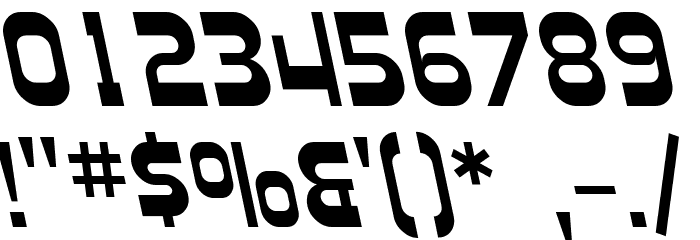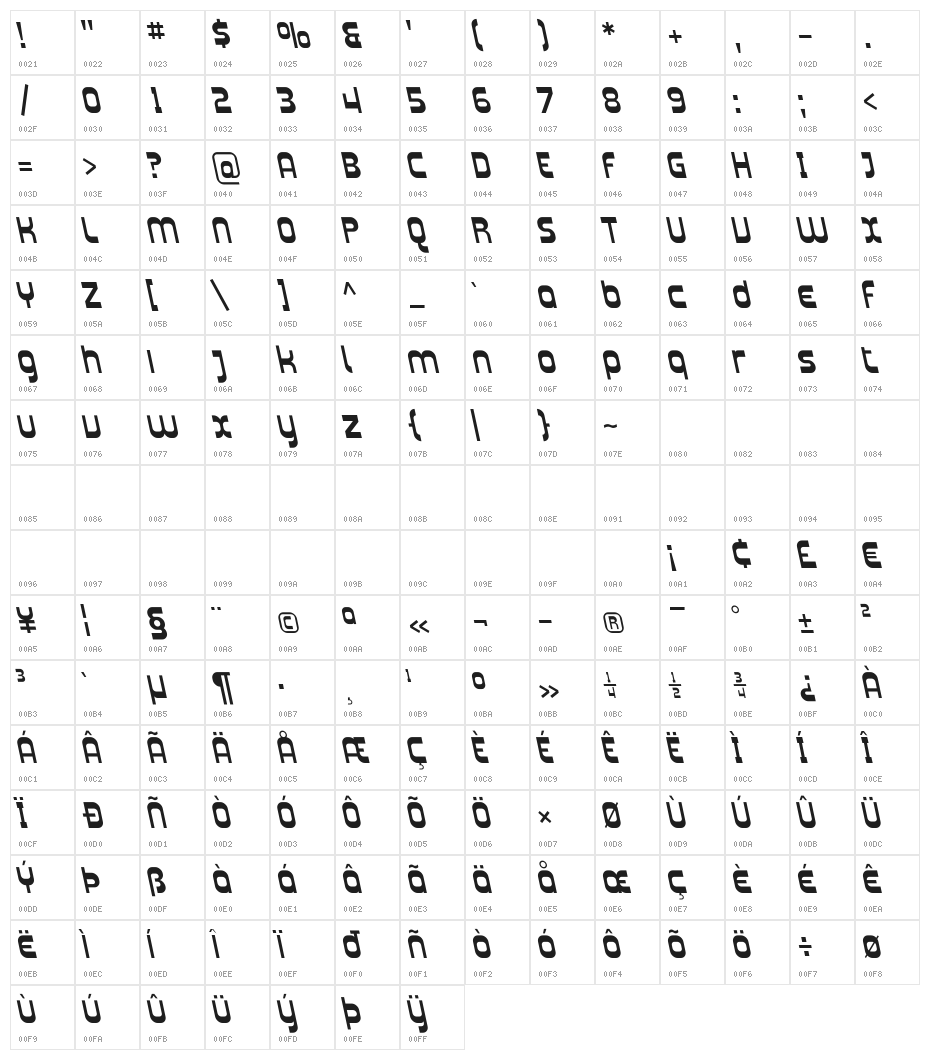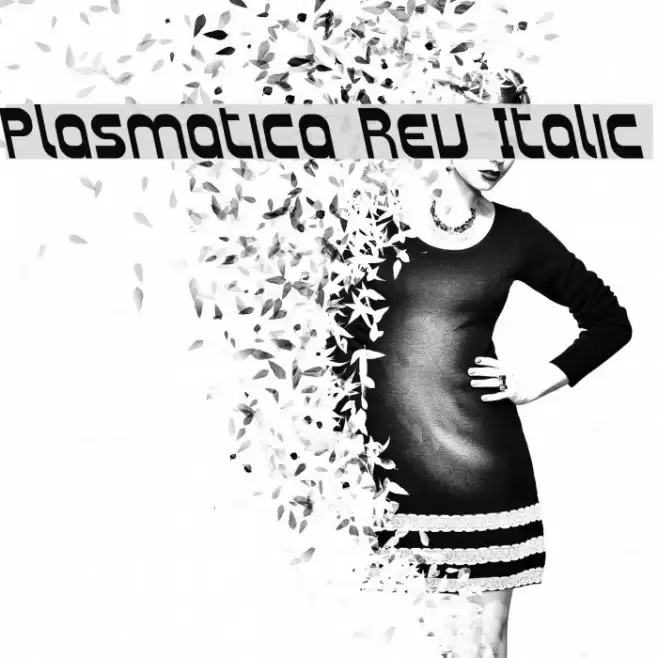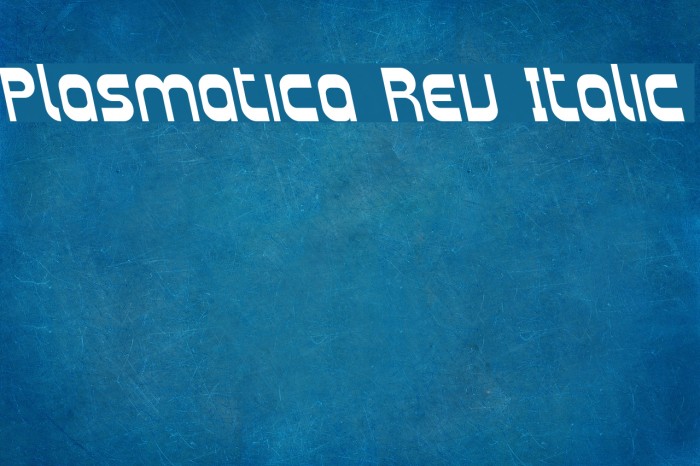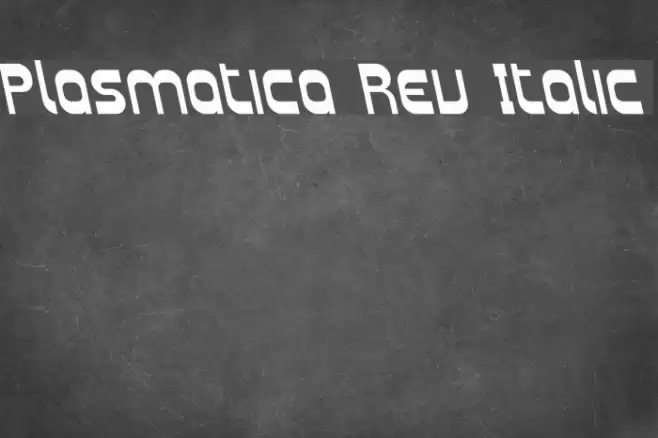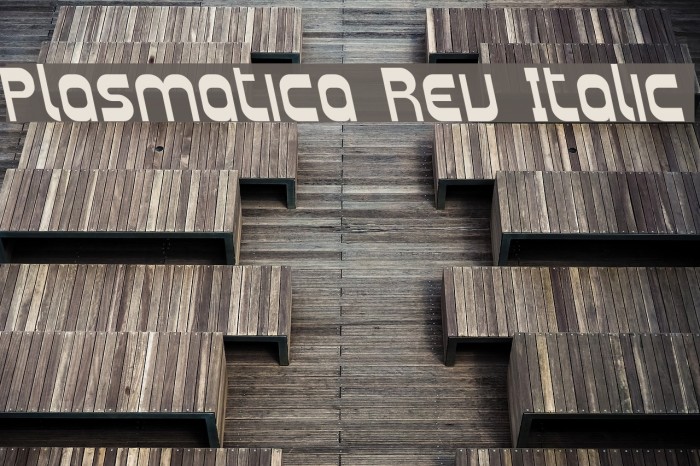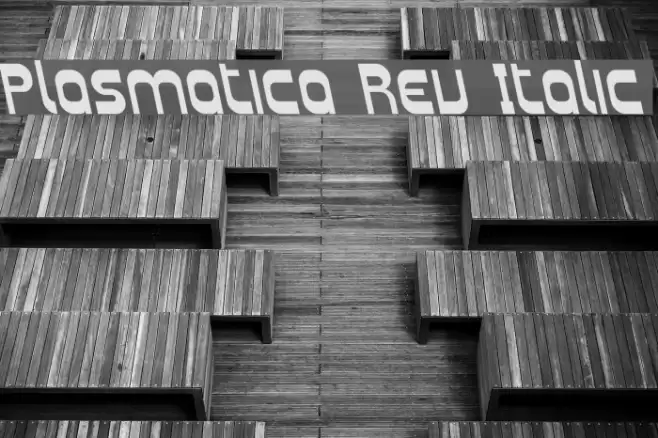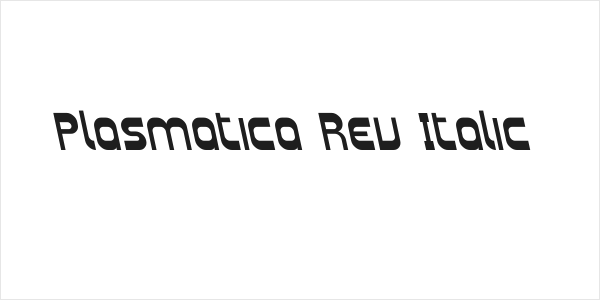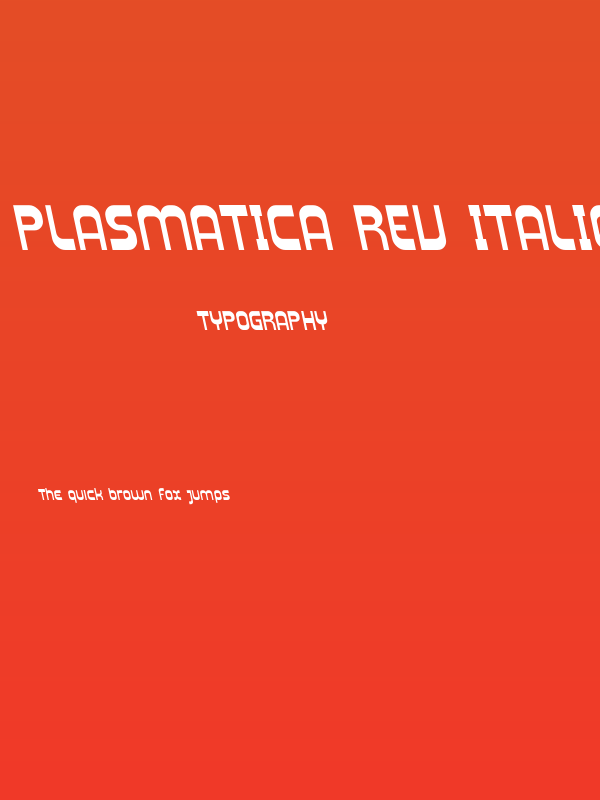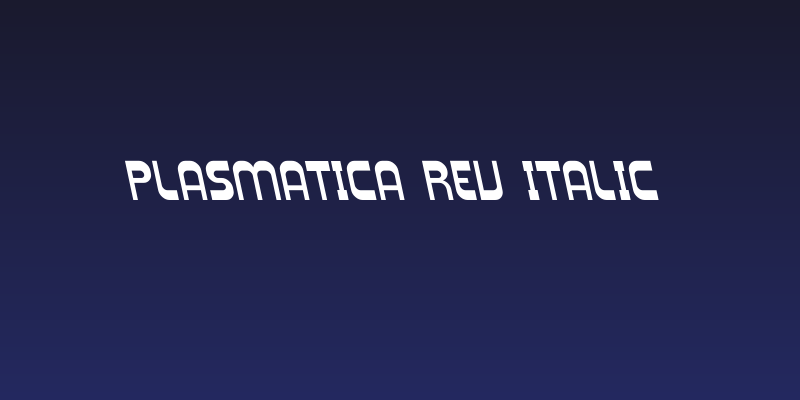
Plasmatica Rev Italic Font
Plasmatica Rev Italic Description
This font features a futuristic and dynamic design with a distinct italic slant, giving it a sense of motion and energy. The characters are bold with a geometric structure, incorporating sharp angles and clean lines. The uppercase and lowercase letters maintain a consistent style, while the numerals and special characters complement the overall aesthetic. The font's modern appearance makes it suitable for technology-related projects or any design that requires a contemporary and edgy look.